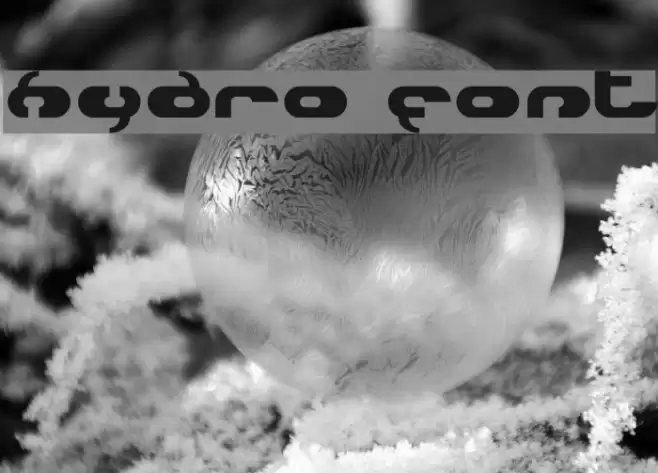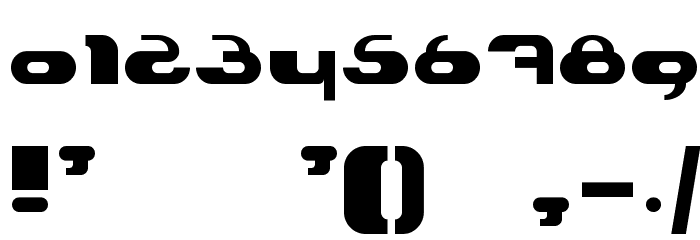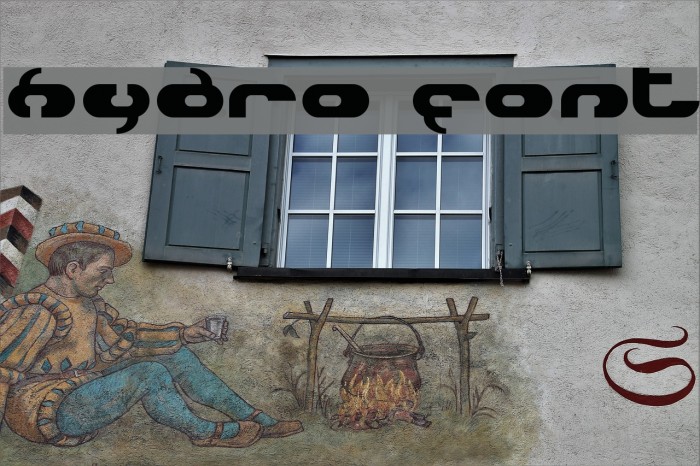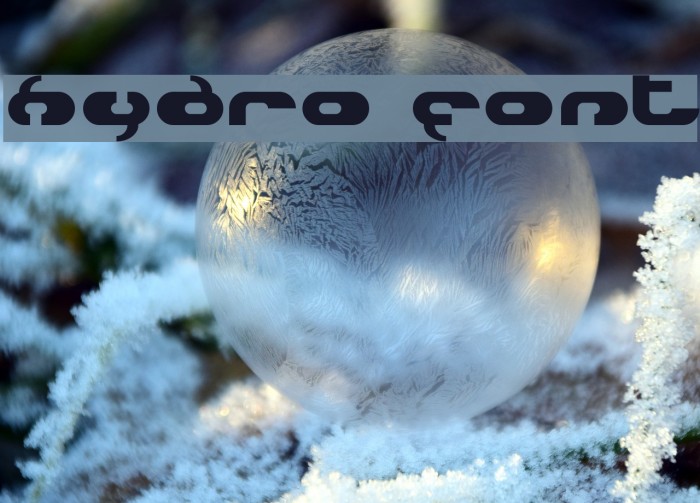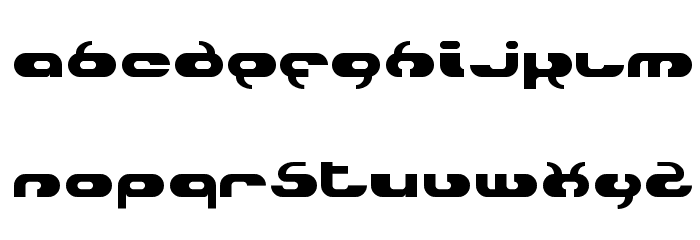
Hydro Font
Hydro Description
This font features a bold and futuristic design with a unique blend of geometric shapes and smooth curves. The characters are distinctly modern, with a strong emphasis on circular and semi-circular forms, giving it a dynamic and energetic appearance. The uppercase and lowercase letters maintain a consistent style, with some characters having a slightly condensed form. The numbers are bold and easily distinguishable, while the special characters complement the overall aesthetic with their rounded and angular elements. This font is ideal for projects that require a contemporary and eye-catching look.
A bold, futuristic font with geometric shapes and smooth curves from Futuristic fonts.
- Proposed Projects: Ideal for technology branding, sci-fi posters, video game titles, and modern advertising.